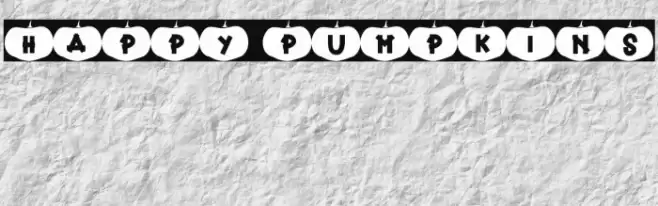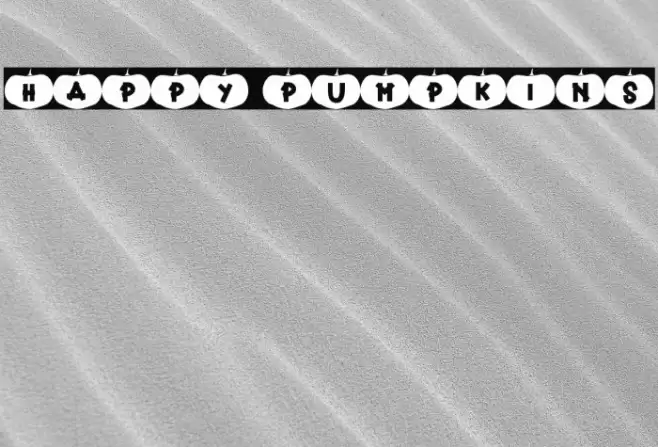
Happy Pumpkins Font
Happy Pumpkins Description
This playful and thematic font features each character enclosed within a pumpkin shape, complete with a small stem on top. The letters and numbers are bold and clear, making them easily legible against the whimsical backdrop. The design is perfect for seasonal or festive projects, particularly those related to Halloween or autumn themes. The characters are evenly spaced within their pumpkin outlines, providing a consistent and cohesive look. The font's unique style adds a touch of fun and creativity, making it ideal for decorative purposes.
A playful font with characters inside pumpkin shapes, perfect for festive themes from Regular fonts.
- Font: Happy Pumpkins
- Proposed Projects: Ideal for Halloween invitations, seasonal greeting cards, festive banners, and themed party decorations.
- Use Case: Headlines, Logos, Decorative text